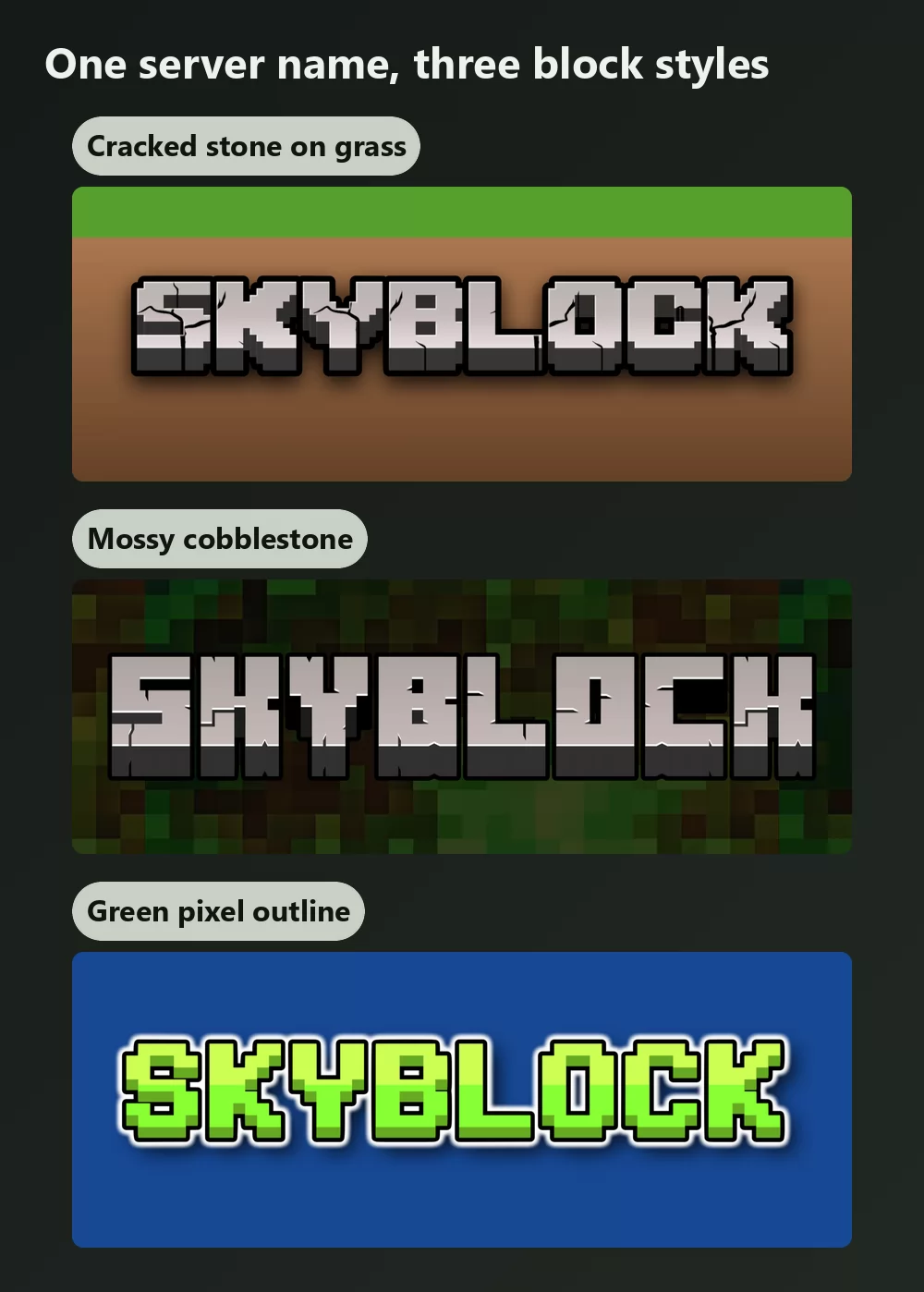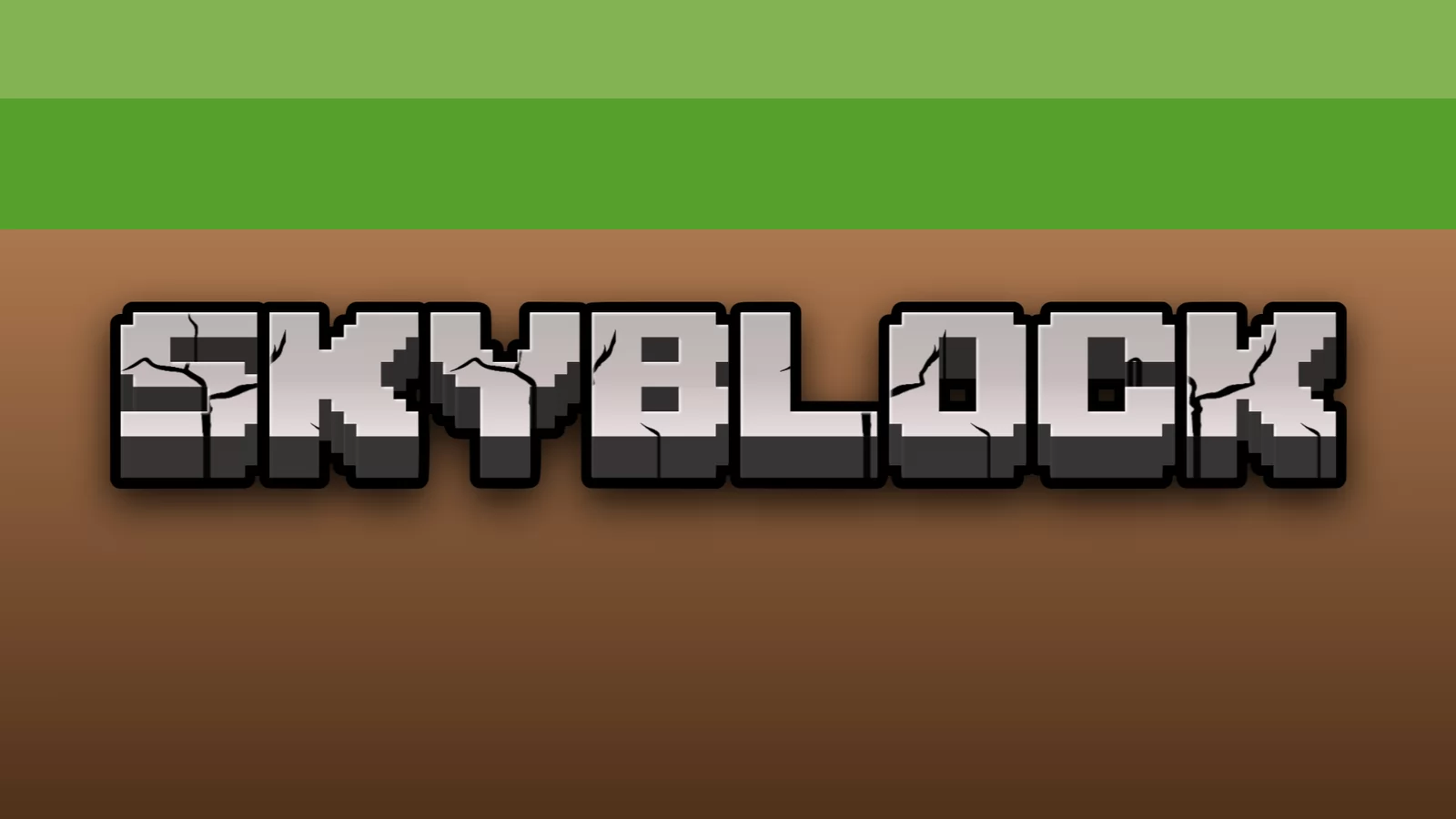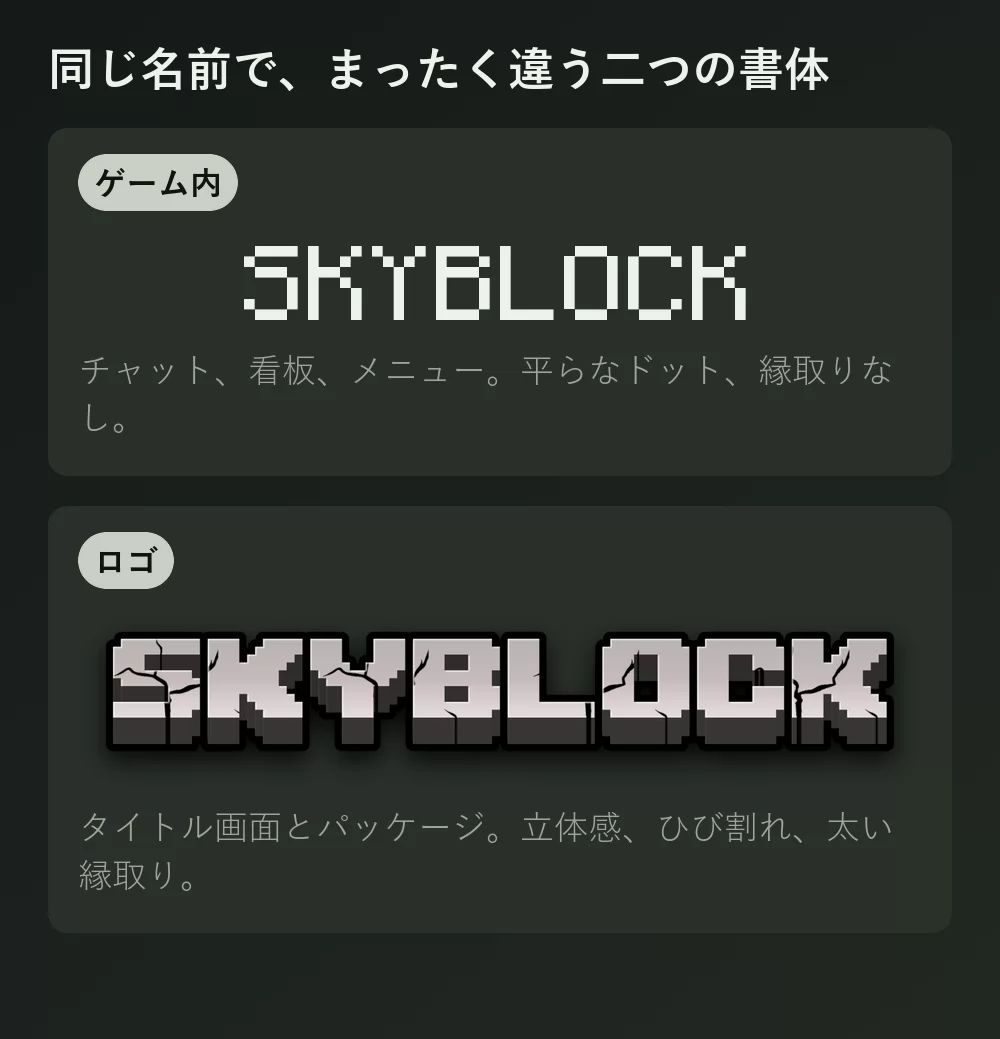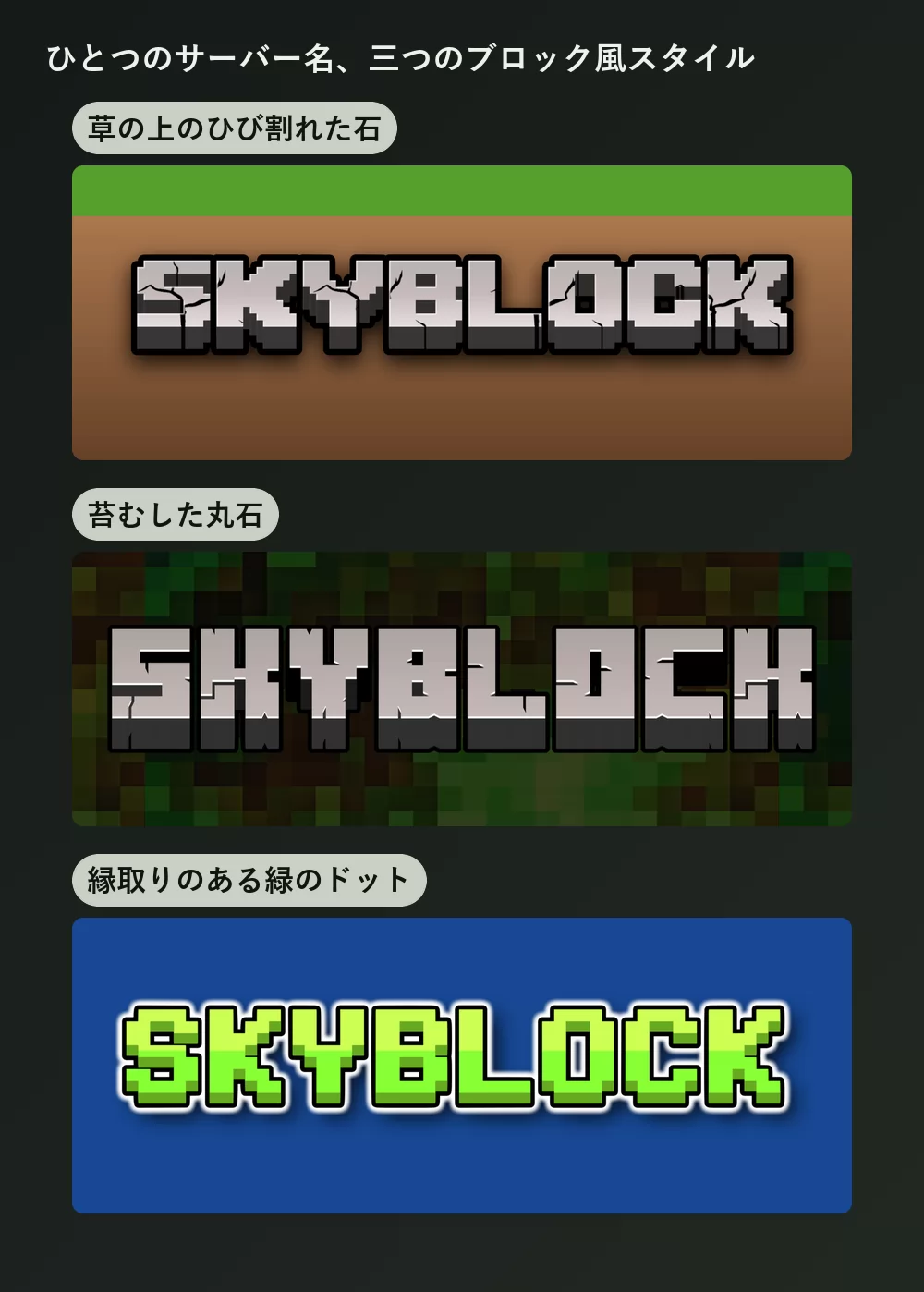
Type "Minecraft font" into a search box and you get two piles of results that do not agree with each other. One pile offers a flat pixel typeface. The other offers chunky stone letters with cracks in them. Both call themselves the Minecraft font.
They are both right, because Minecraft uses two completely different typefaces, and the game only ships one of them. Almost everyone searching is picturing the second one.
The short answer: it is two fonts, not one
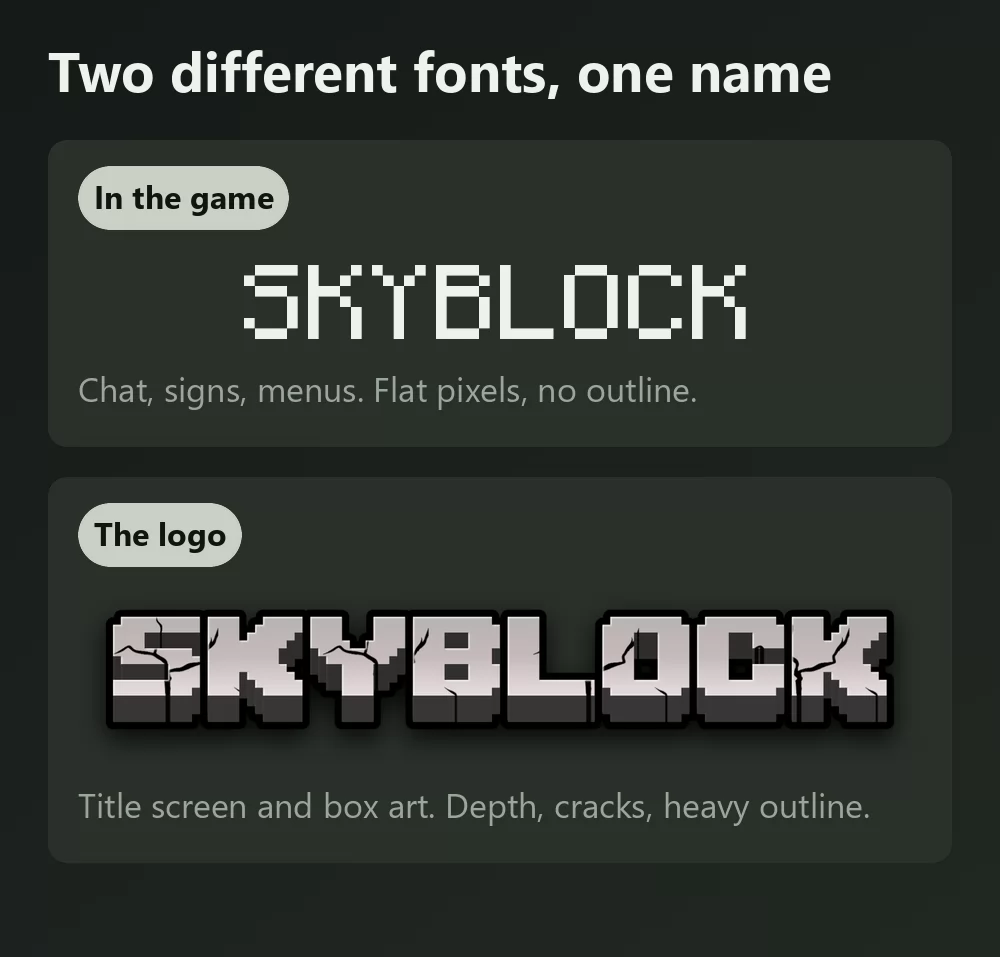
Mojangles is the one the game runs on. It is the small pixel type used for chat, item names, signs, menus and every scoreboard you have ever squinted at. Flat, no shading, no outline.
The logo face is the thick stone-carved lettering from the title screen and the box art. It has depth, a heavy dark outline and cracks running through the letters. It is not in the game as a typeface at all: it is artwork.
If you are making a server banner, a YouTube thumbnail, an SMP logo or a Discord header, you want the second one. If you are recreating a chat message or a sign, you want the first.
Where Mojangles actually came from
This part is genuinely good trivia, and most pages get it wrong.
Mojangles is older than Minecraft. Markus Persson drew it in 2001 for an earlier game of his called Legend of the Chambered, eight years before Minecraft existed, and he based it on the 8x8 pixel font built into the IBM EGA graphics adapter from 1984. The typeface you associate with the biggest selling game of all time started life as a hardware character set for early PC graphics cards.
One correction while we are here, because it is repeated everywhere: Mojangles is not monospaced. Its glyphs are drawn on an 8 pixel grid, but the widths vary from 1 to 8 pixels, which is why a capital M takes far more room than a lowercase i. Several popular guides state the opposite. Fire up any Minecraft world and look at a sign to confirm it in two seconds.
It is also the most complete of the bunch: over 1500 glyphs covering accented Latin, Cyrillic and Greek, plus the Standard Galactic Alphabet from the enchanting table. It ships as .ttf and .ttc, and the author is explicit that it is a fan project containing no Mojang assets.
Two things to know. It is deliberately monospaced, unlike Mojangles, because it was built as a programming font, so long words look a little wider than they do in game. And it has no Chinese, Japanese or Korean glyphs, which matters if you were planning to set CJK text in it.
The free pixel recreations
The most downloaded is simply called "Minecraft", by Craftron Gaming, sitting at close to five million downloads on DaFont. It is a 6 KB TrueType file that reproduces the flat in-game look, and DaFont lists it as 100% free.
Worth a moment of caution: DaFont files it under "Public domain / GPL / OFL", which are three different licences with three different sets of obligations. If the project is a client job or anything commercial, read the file that comes with the download rather than trusting the category label.
MineCrafter, the logo one, and the licence people miss
MineCrafter by Madpixel Designs is the stone-carved logo lettering, complete with a cracked variant. It has been downloaded around 4.75 million times, and it is the one most people actually end up installing, because it is the look they were picturing.